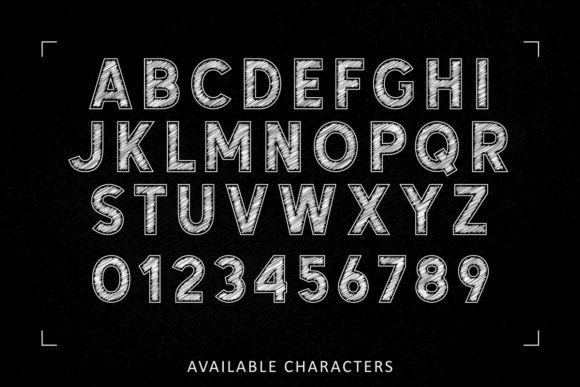
Introduction to Sketched Hand Drawn Font Font
Fonts play a crucial role in design, and the Sketched Hand Drawn Font font is a typeface that brings both character and versatility to any project. Whether you’re working on a branding project, a website, or a print design, the Sketched Hand Drawn Font font offers a unique style that can elevate your work.
Sketched Hand Drawn is a cool color font exuding an artistic flair and handcrafted charm.
Its hand-drawn style adds authenticity to designs, evoking creativity and uniqueness Ideal for posters, headlines, and branding projects, Sketched Hand Drawn infuses compositions with a dynamic and playful touch, making them stand out effortlessly.
Key Features of Sketched Hand Drawn Font Font
Why Choose Sketched Hand Drawn Font Font?
The Sketched Hand Drawn Font font is more than just a typeface – it’s a design tool that helps you communicate your message with style and clarity. Its unique character set and versatile design make it suitable for a wide range of applications, from elegant invitations to bold headlines.
With its carefully crafted letterforms and balanced proportions, the Sketched Hand Drawn Font font ensures readability and visual appeal across all mediums.
What makes Sketched Hand Drawn Font font special?
The Sketched Hand Drawn Font font stands out with its unique design, exceptional readability, and versatility across various design applications.